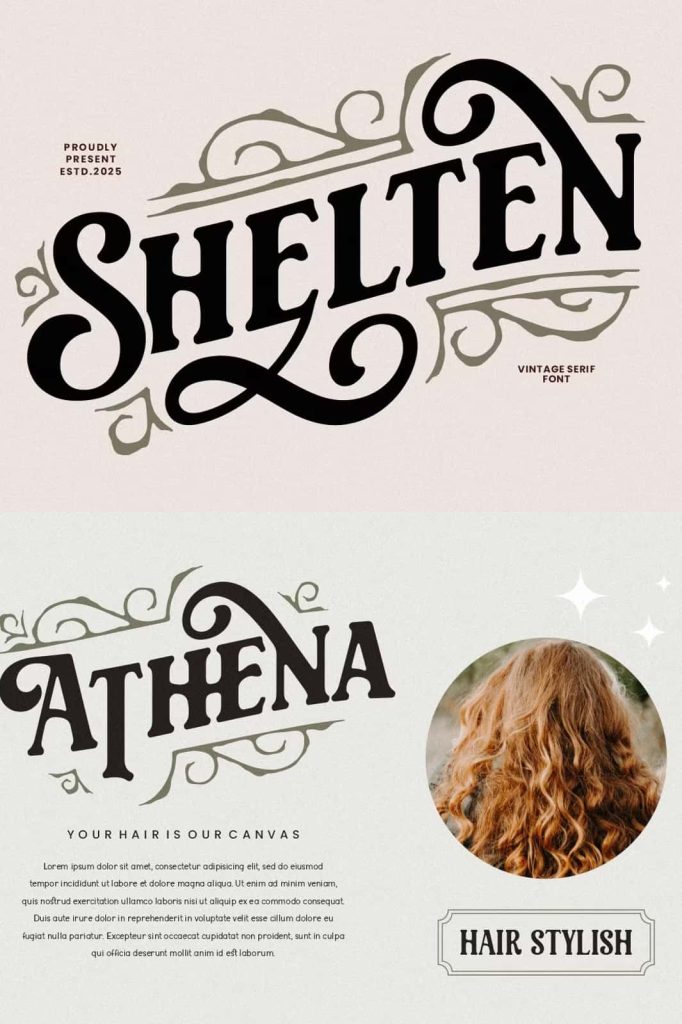
Shelten Font: A Vintage Display Typeface with Rustic Character
Shelten Font delivers a bold and expressive vintage display style that instantly enhances the visual identity of any design project. It captures the essence of old-world craftsmanship while maintaining strong readability and versatility. Designers who want to evoke nostalgia, authenticity, and handcrafted quality will find this typeface a reliable creative tool. With its rugged texture and classic form, Shelten Font adds depth and personality to every composition.
Bring Authentic Vintage Style to Your Designs
Shelten Font embraces the aesthetics of vintage typography and transforms them into a modern design asset. It combines rustic charm with artistic detailing, allowing designers to create visuals that feel both timeless and impactful. The font’s structure reflects a handcrafted feel, making it especially effective for projects that require an organic or retro-inspired look.
Whether you are building a brand identity or crafting a packaging concept, Shelten Font helps you communicate a strong visual story. Its bold appearance ensures your message stands out while maintaining a warm, nostalgic tone that resonates with audiences.
Designed for Versatility and Impact
Shelten Font adapts easily to a wide range of creative applications. Its vintage display style makes it suitable for both bold headlines and decorative elements. Designers can use it to create striking logos, eye-catching posters, or memorable product packaging. The font’s flexibility allows it to perform consistently across different media, from digital designs to printed materials.
This typeface works particularly well for projects that require a rugged or handcrafted feel. It enhances designs related to traditional crafts, artisanal goods, and retro branding concepts. Its visual strength ensures that every design element feels intentional and cohesive.
Perfect for Branding and Product Identity
Shelten Font excels in branding applications where personality and authenticity matter. It is especially effective for product logos such as pomade brands, coffee labels, and barbershop identities. The font’s vintage appeal helps establish trust and familiarity, making it ideal for businesses that want to highlight tradition and quality.
In packaging design, Shelten Font adds a distinctive character that sets products apart on shelves. It enhances labels with a handcrafted aesthetic that attracts attention and communicates value. Designers can use it to create packaging that feels premium, unique, and memorable.
Enhance Creative Projects with Rustic Elegance
Shelten Font goes beyond branding and packaging. It serves as a powerful tool for a variety of creative projects, including lettering, logotypes, posters, and craft designs. Its expressive style allows designers to experiment with composition while maintaining a consistent visual identity.
The font’s organic nature makes it ideal for projects that require a natural or wild aesthetic. It blends well with textures, illustrations, and other design elements, enabling you to create cohesive and visually engaging compositions. Whether you are working on a poster design or a handcrafted product label, Shelten Font elevates the overall look and feel.
Why Choose Shelten Font
Shelten Font stands out because it combines vintage inspiration with practical usability. It provides designers with a reliable way to achieve a rustic and retro look without sacrificing clarity or impact. Its strong visual presence ensures that your designs remain memorable and effective across different platforms.
By choosing Shelten Font, you gain access to a typeface that enhances storytelling, strengthens branding, and supports creative exploration. It allows you to build designs that feel authentic, engaging, and visually compelling.
Shelten Font offers a perfect balance between vintage aesthetics and modern design needs. It empowers designers to create projects that stand out with character and authenticity. Whether you are working on branding, packaging, or artistic compositions, this font provides the tools you need to deliver impactful and timeless designs.